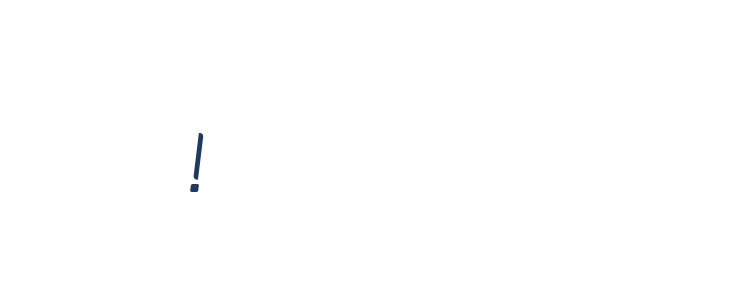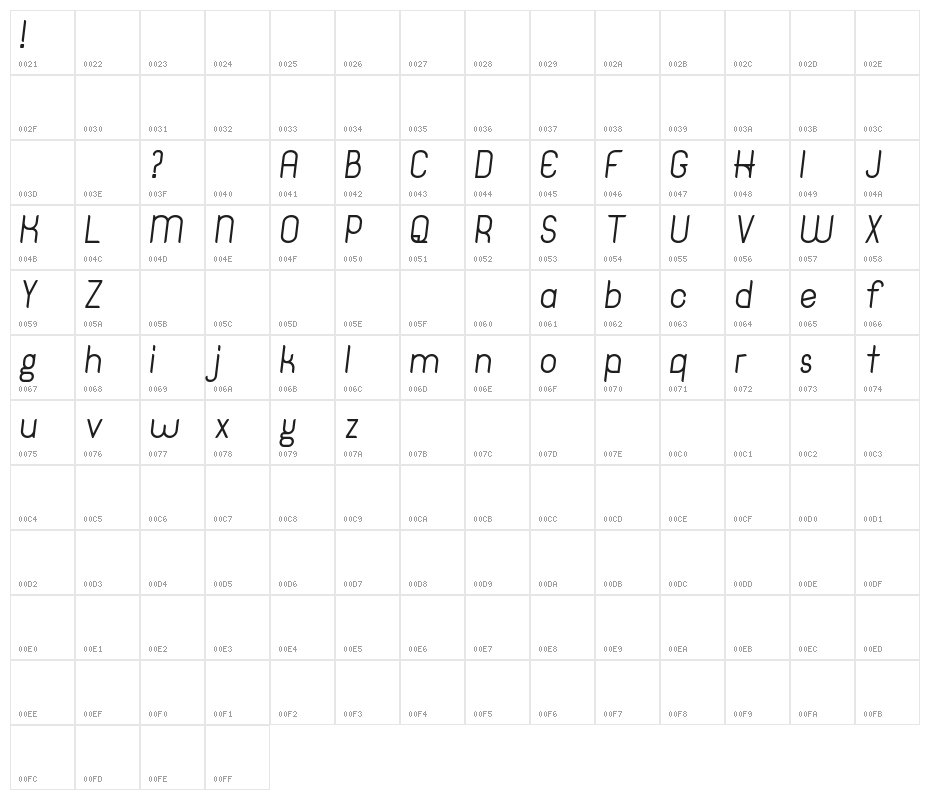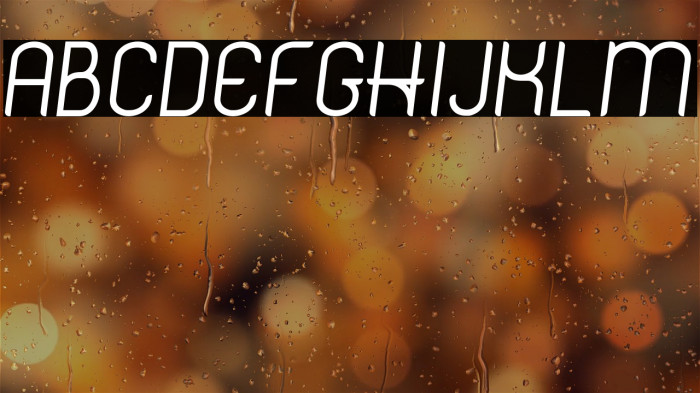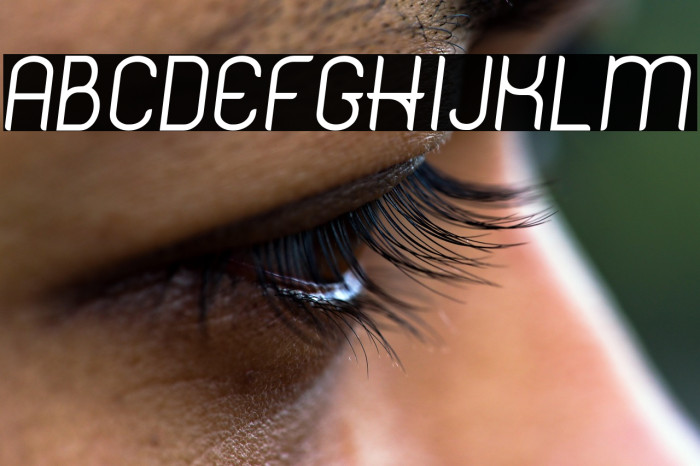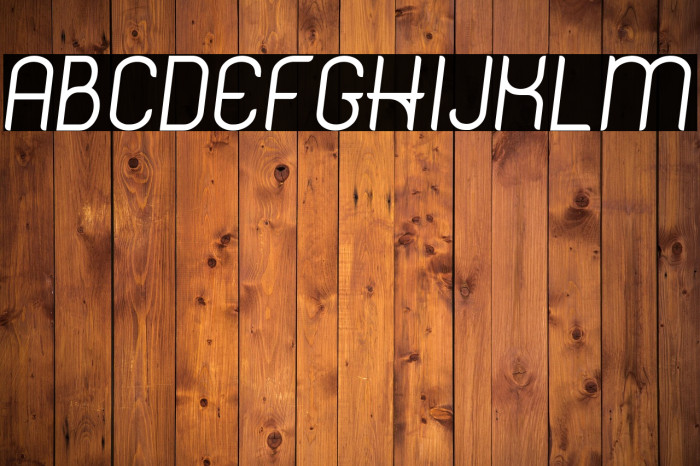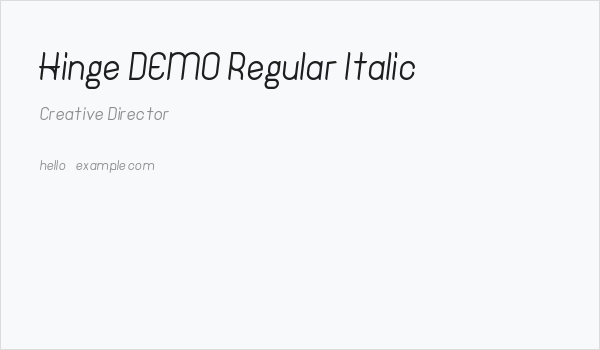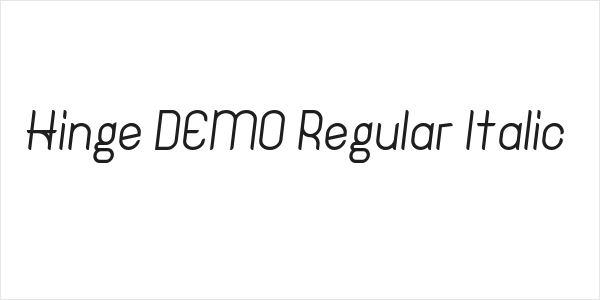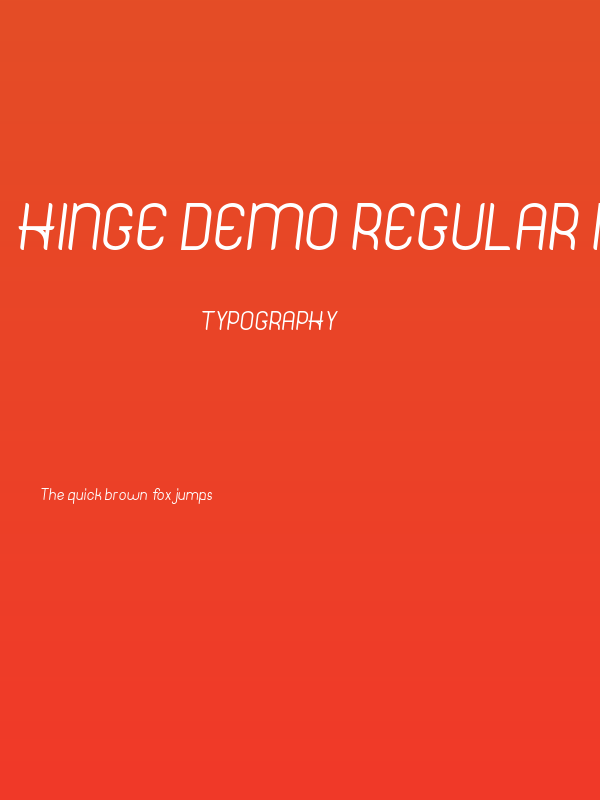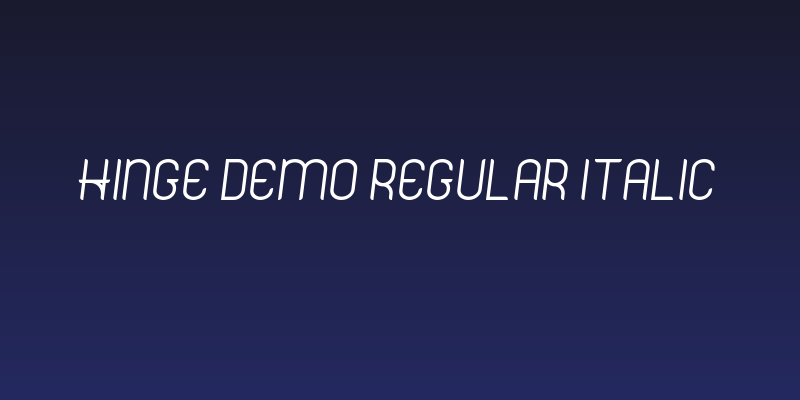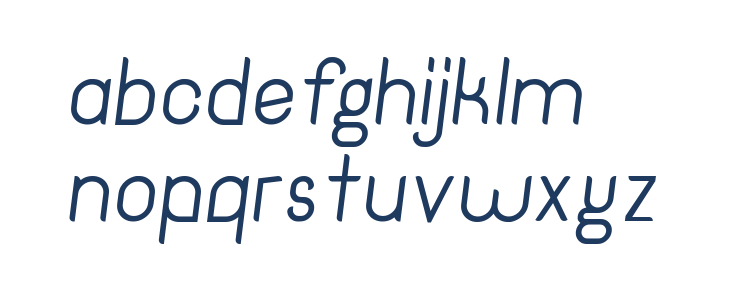
Hinge DEMO Regular Italic Font
Hinge DEMO Regular Italic Description
This font features a modern and sleek design with a distinct italic slant, giving it a dynamic and forward-moving appearance. The characters are crafted with a geometric precision, featuring rounded edges and a consistent stroke width that adds to its contemporary feel. The uppercase letters maintain a uniform height, while the lowercase letters exhibit a subtle variation in size, enhancing readability. The font's minimalistic style is complemented by its clean lines and open apertures, making it suitable for various design applications. Its unique character shapes, such as the curved 'r' and the angled 'e', add a touch of personality without compromising legibility.
| Proposed Projects | Ideal for branding, advertising, and editorial design projects that require a contemporary and stylish touch. |